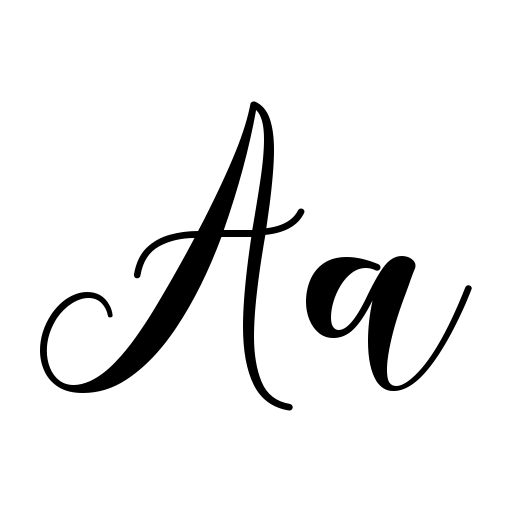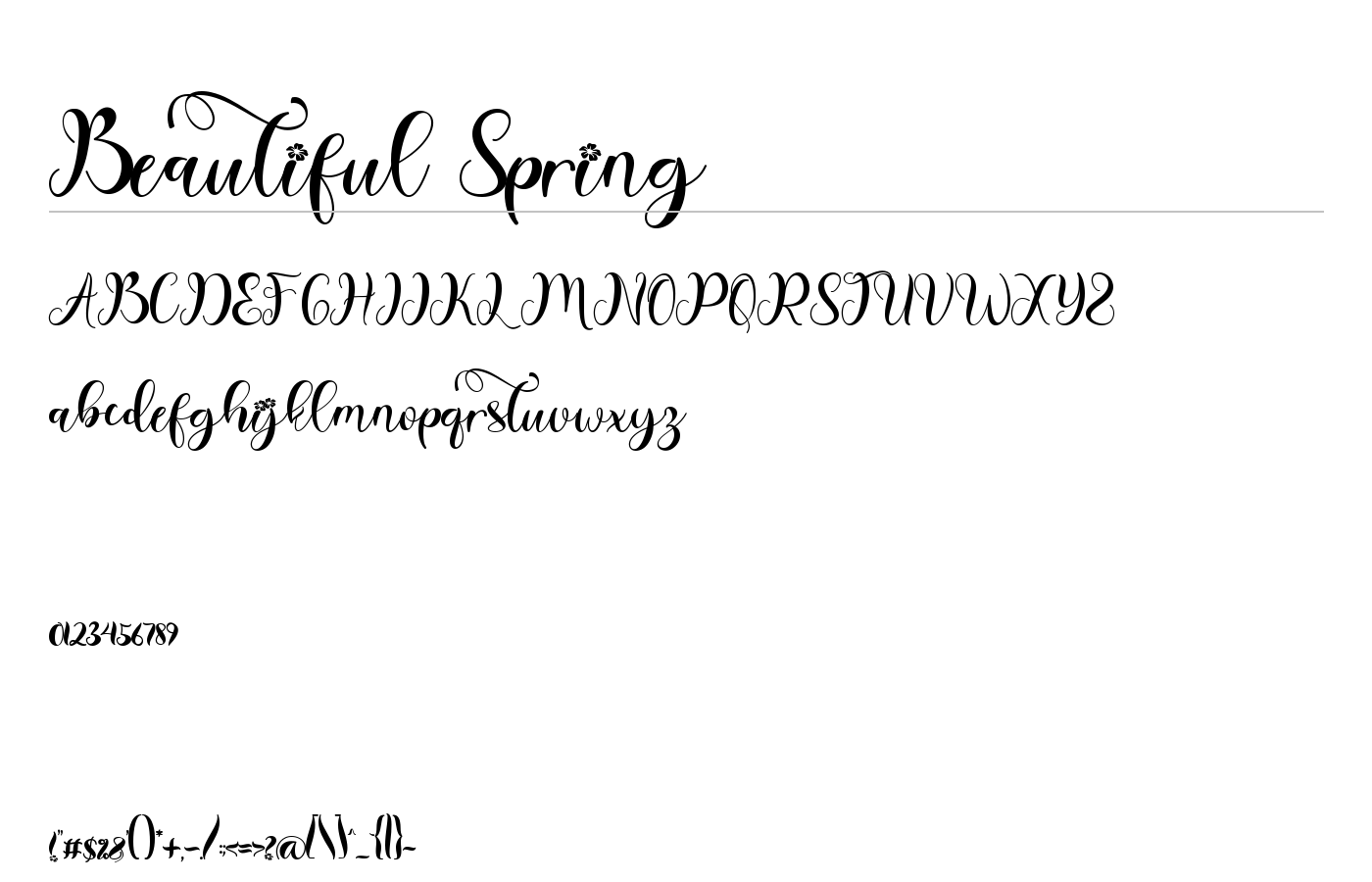
Beautiful Spring Font is a delicate, elegant script typeface with flowing, decorative strokes and charming floral embellishments that evoke a fresh, romantic feel. Its slender, whimsical letterforms make it perfect for stylish invitations, branding with a feminine touch, and creative projects where a graceful, artistic flair is desired. This font brings a sense of warmth and beauty, ideal for fashion, wedding, and lifestyle designs.
Beautiful Spring Font
About Beautiful Spring Font
| Font family | Beautiful Spring Font |
| Designer | Yoga Letter 2022 (Isroni Yoga Prasetya) |